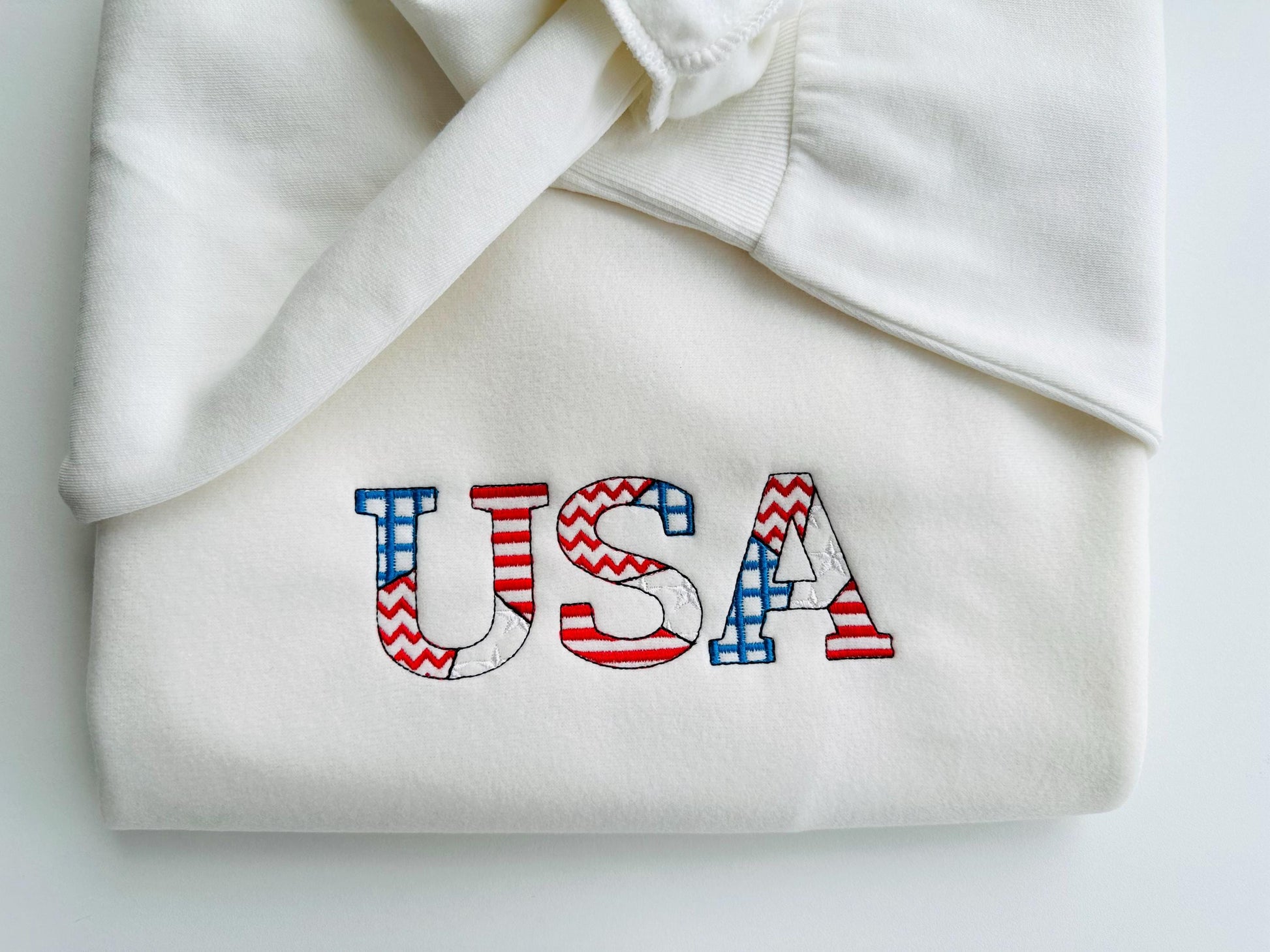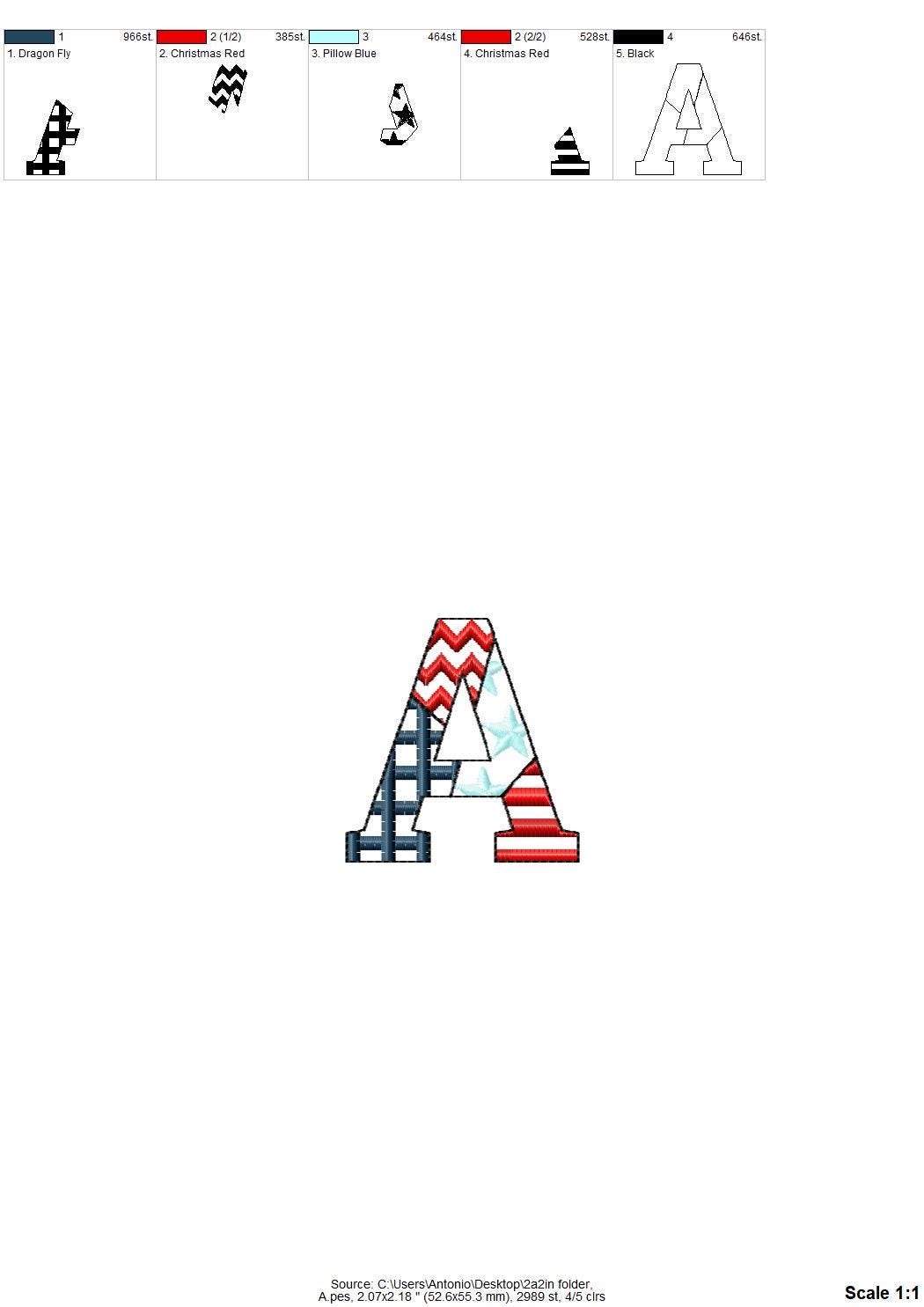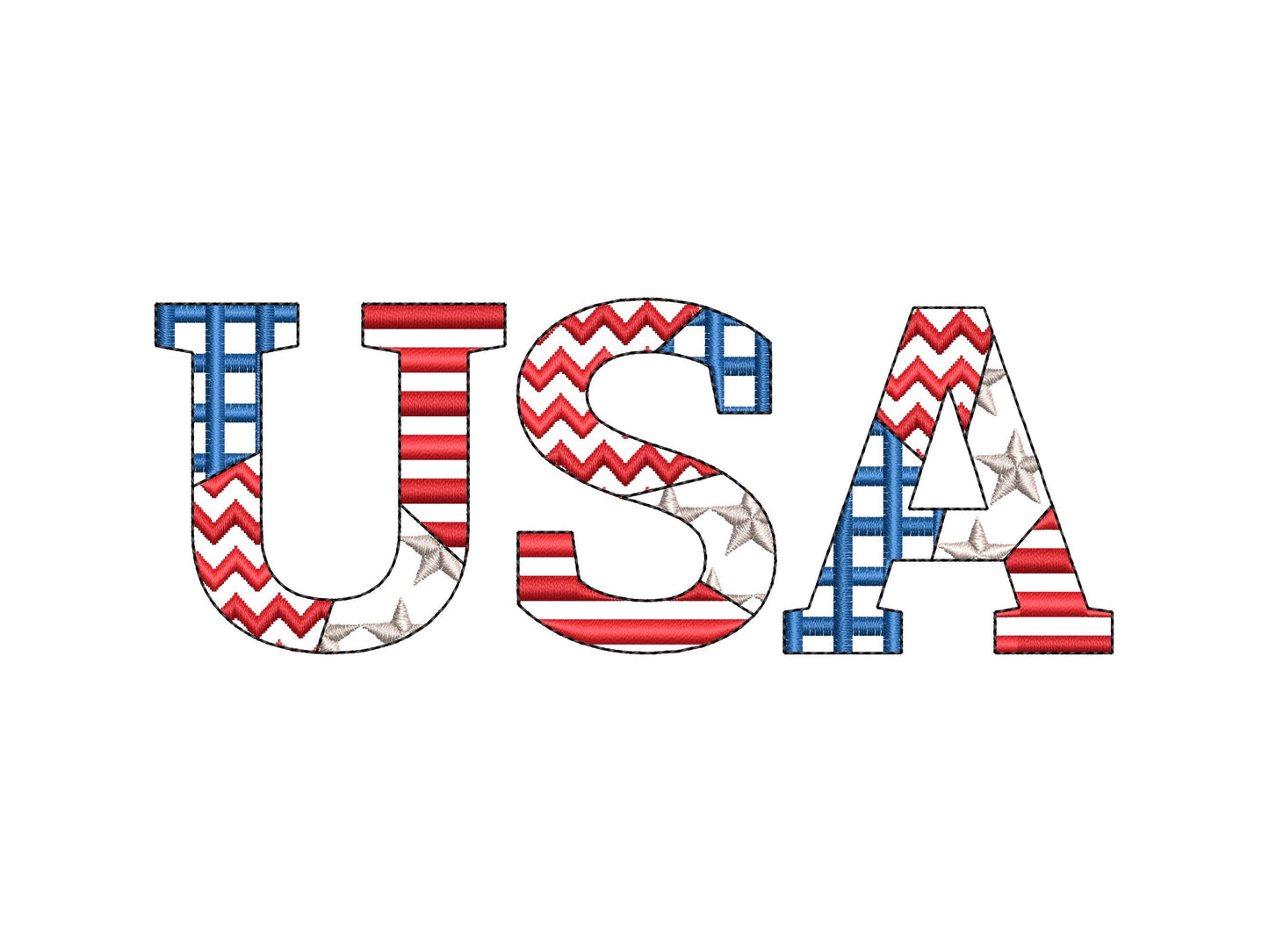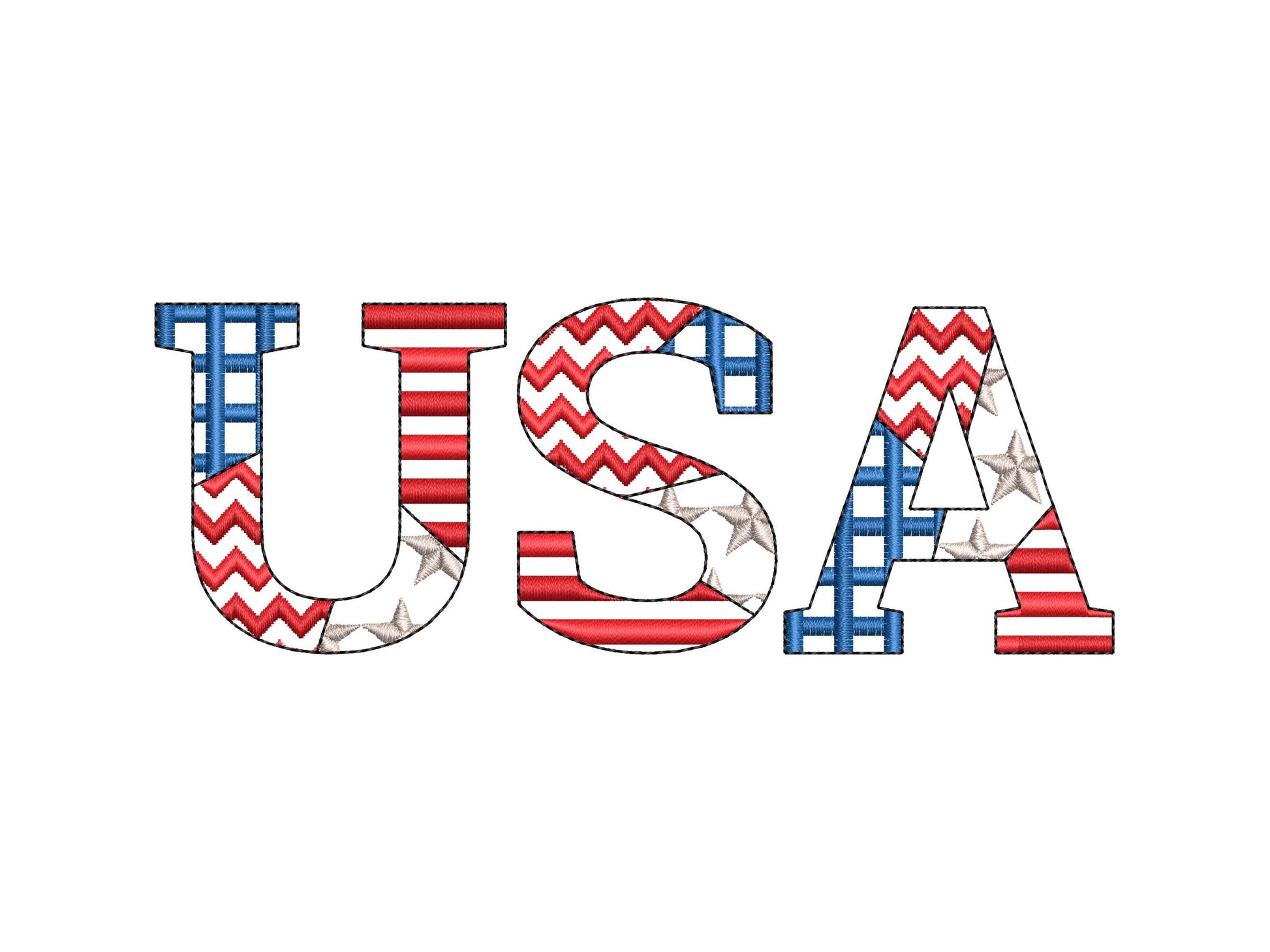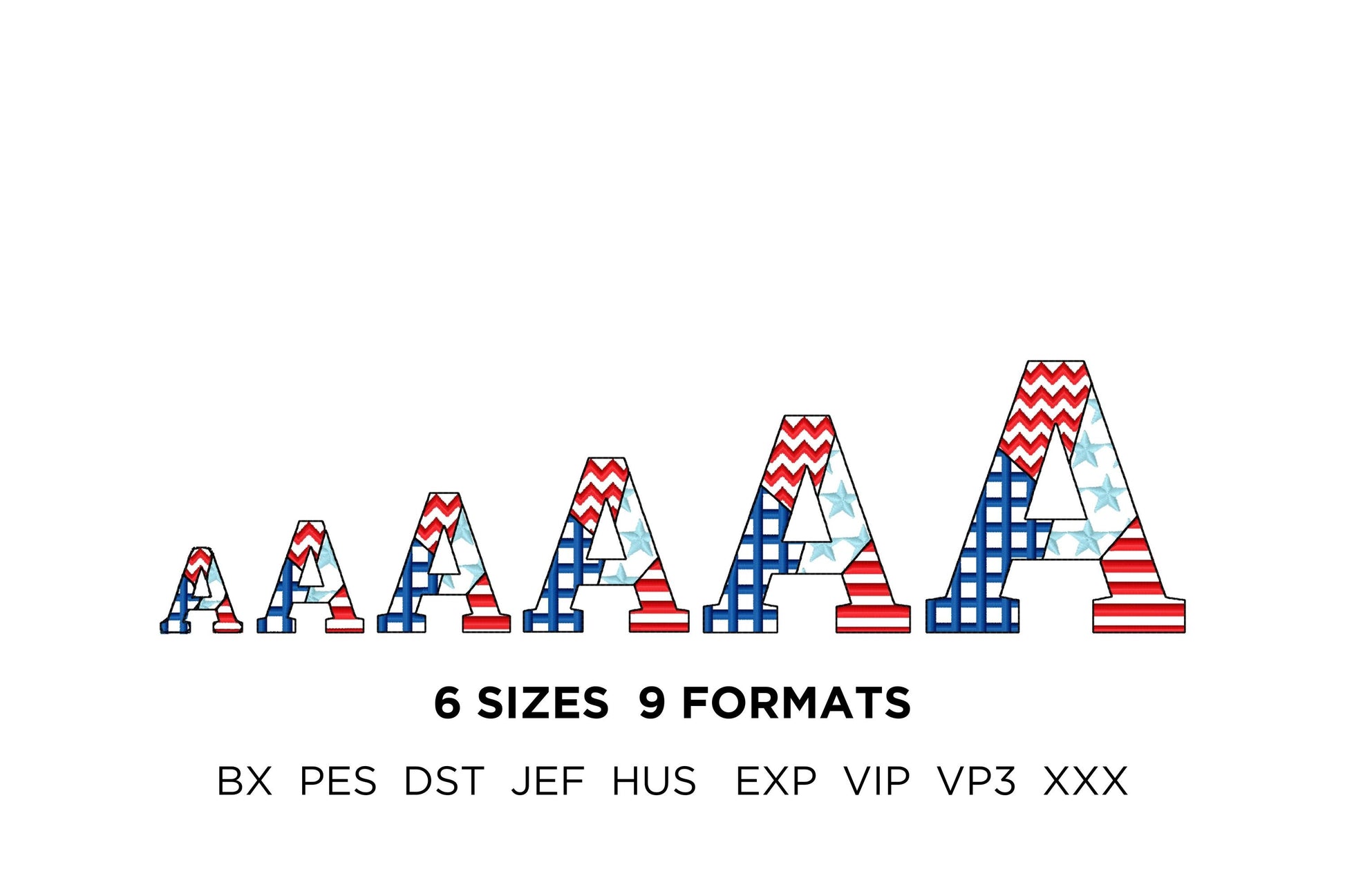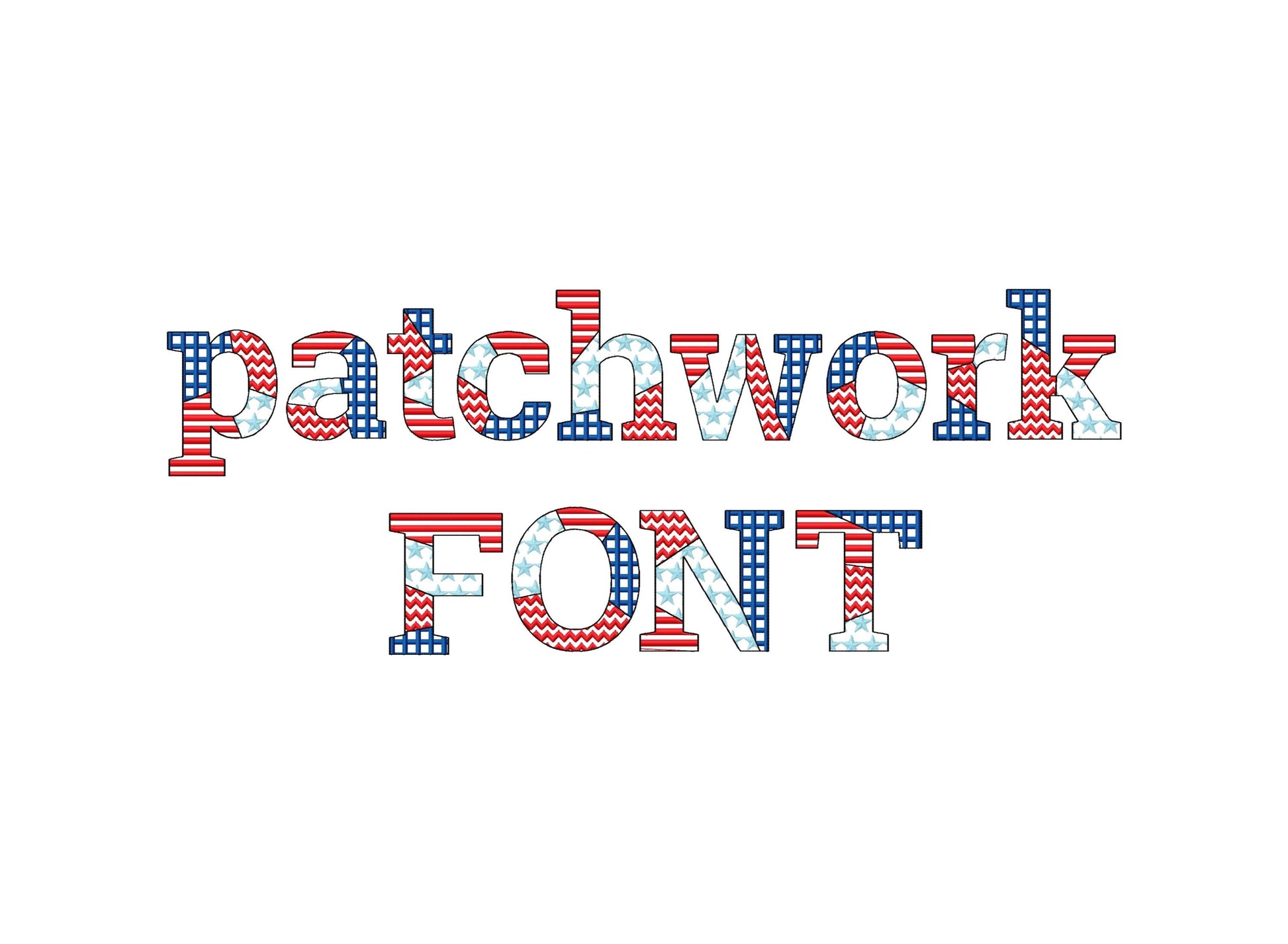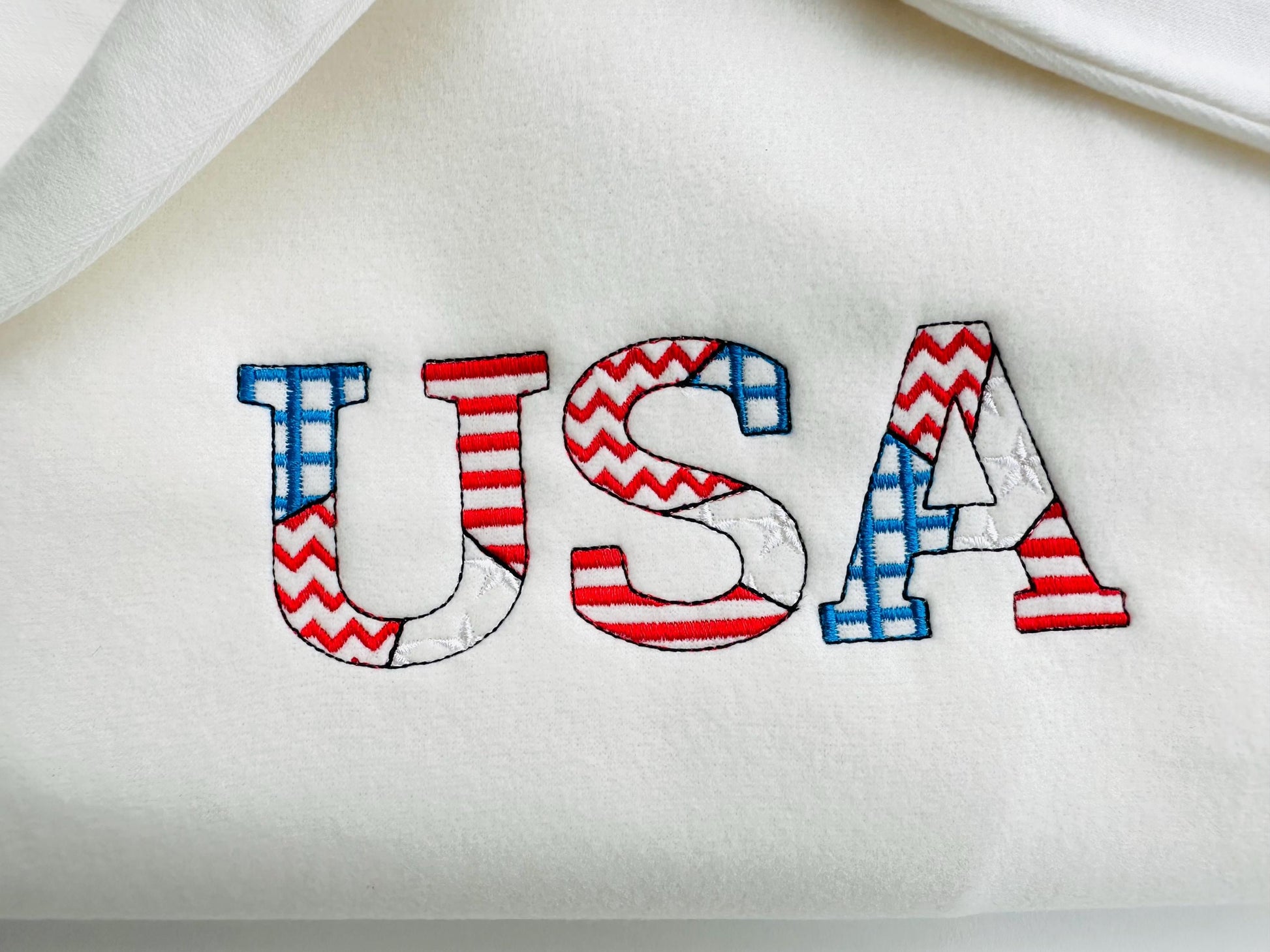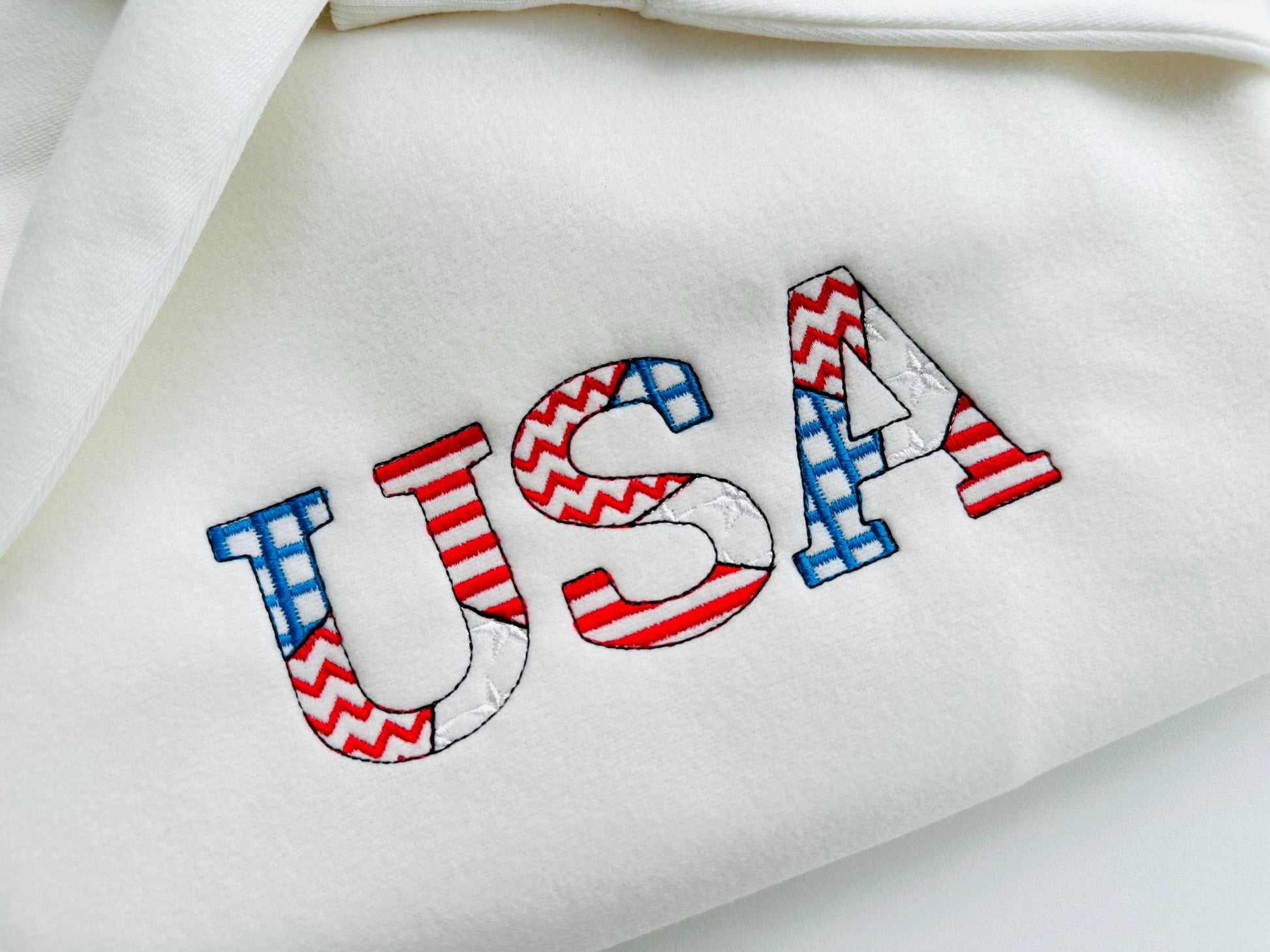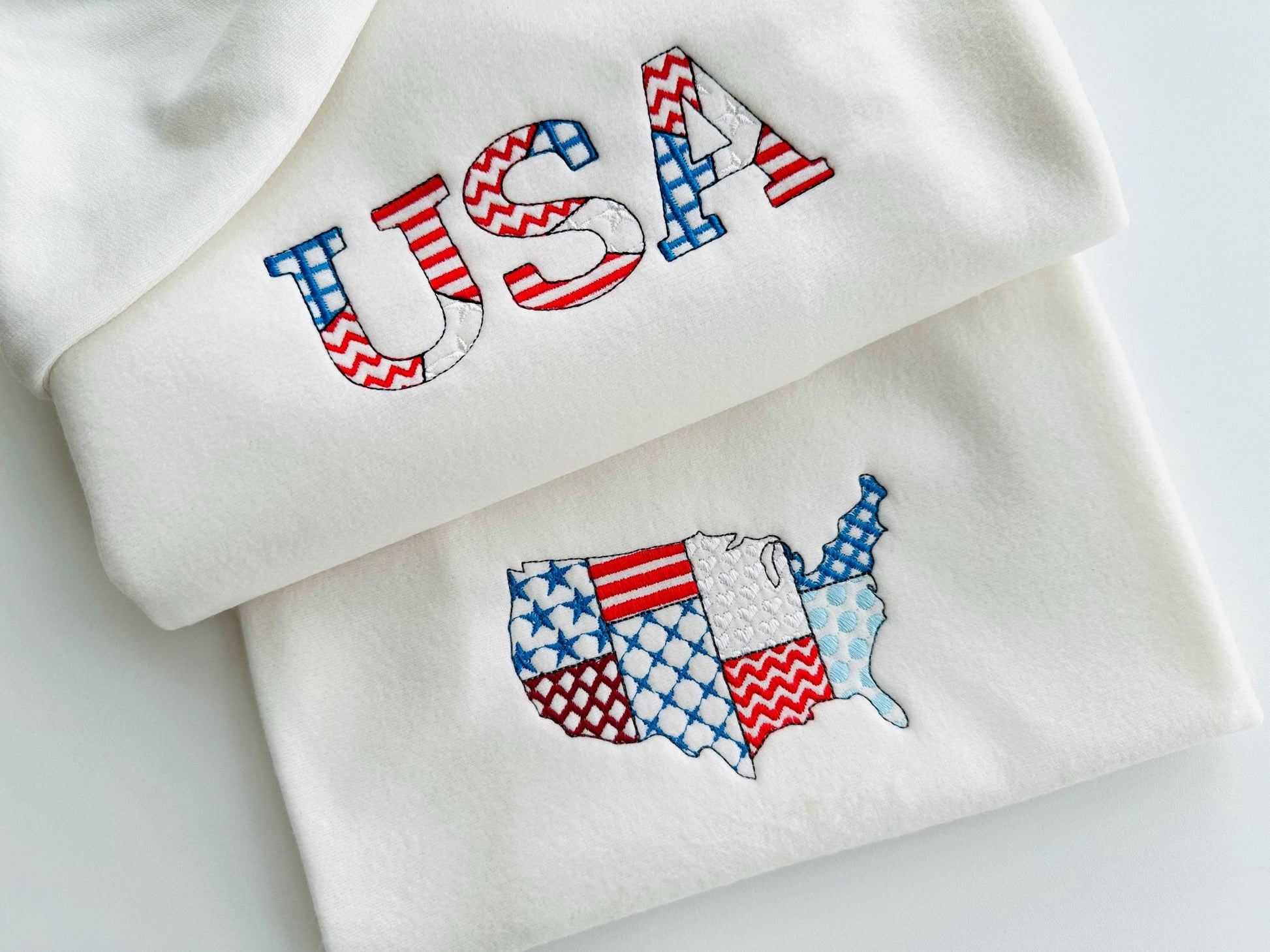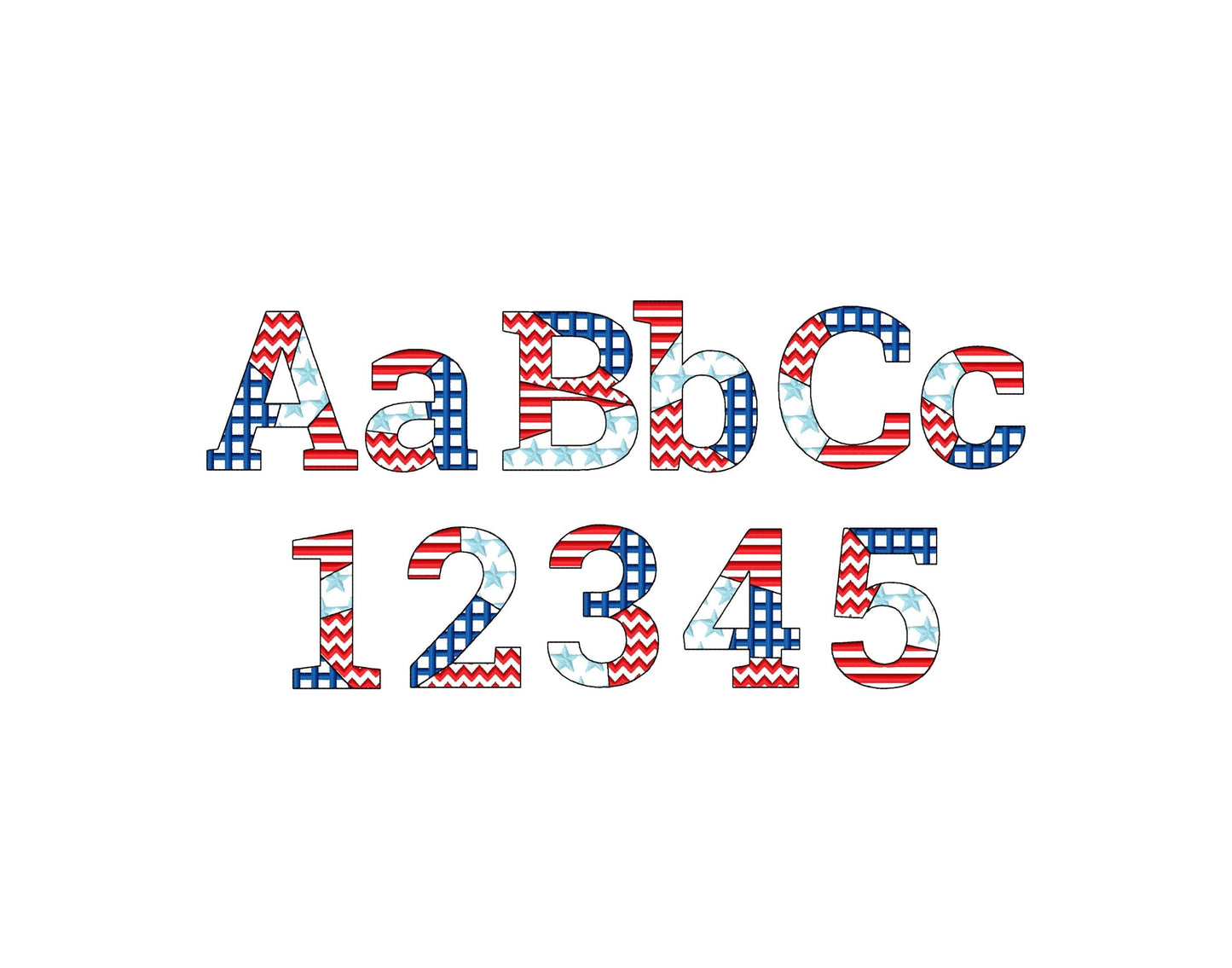
Patchwork USA Flag Block Font
Or click to open the linkA patriotic block font with a patchwork USA flag pattern inside every letter. Great for 4th of July shirts, flags, pillows and monograms.
The letters come in six sizes: 1, 1.4, 1.8, 2.2, 2.7 and 3.4 inches. The stars and stripes pattern is stitched into the letters and framed by an outline; the fabric shows through. Includes uppercase and lowercase letters A to Z, numbers 0 to 9 and punctuation.
- Patchwork USA flag block font
- 6 sizes, 1 to 3.4 in